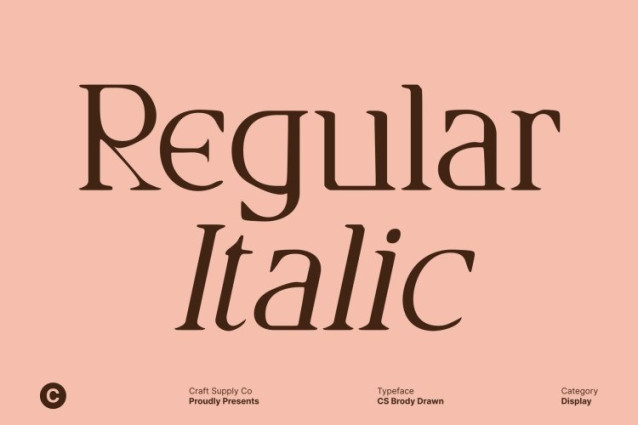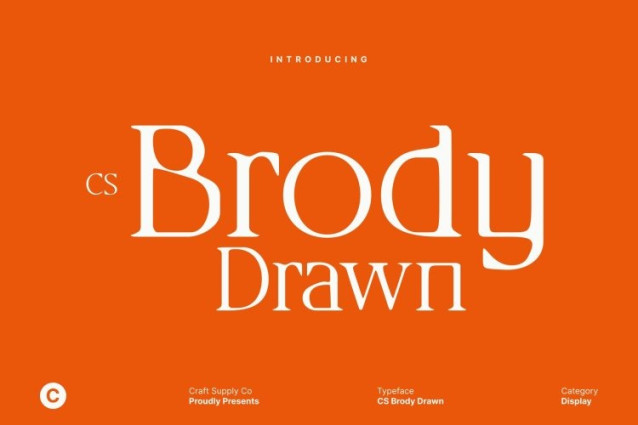
CS Brody Drawn Font
CS Brody Drawn Font This is a modern serif font that beautifully merges classic typographic elegance with contemporary simplicity. Its refined letterforms are enhanced by a subtle drawn texture, giving the font a natural, handcrafted feel. This balance creates a sophisticated yet approachable aesthetic, perfect for designs that value clarity, taste, and timeless style.
Sharp Serifs and Slim, Refined Proportions
Featuring thin, sharp serifs and slim, well-balanced structures, this font conveys precision and elegance without appearing rigid. The drawn effect softens these details slightly, adding warmth and uniqueness to every character while maintaining a clean, professional appearance.
Versatile for Editorials, Branding, and Formal Design
This font adapts effortlessly across luxury branding, editorial layouts, wedding invitations, and refined print materials. Its elegant structure works beautifully for both headlines and supporting text, while the drawn texture adds character that helps designs feel more personal and expressive.
Classic Inspiration, Refined for Modern Use
Inspired by traditional serif typography and refined for today’s design needs, this font delivers a harmonious blend of heritage and modernity. Ideal for elegant, professional, and high-class visual presentations, it elevates any project with subtle charm, sophistication, and natural beauty.